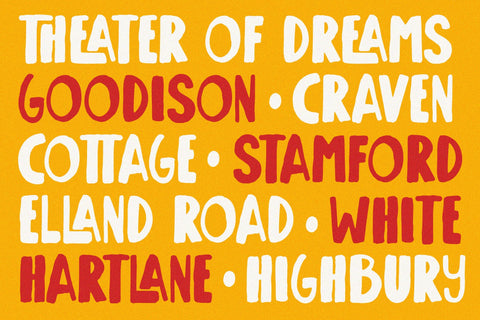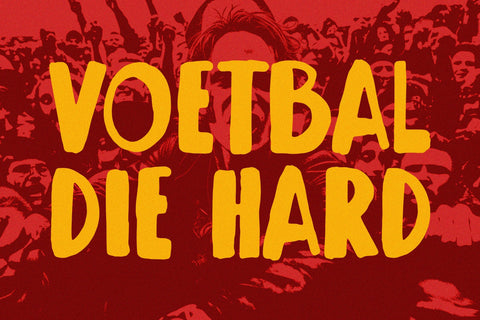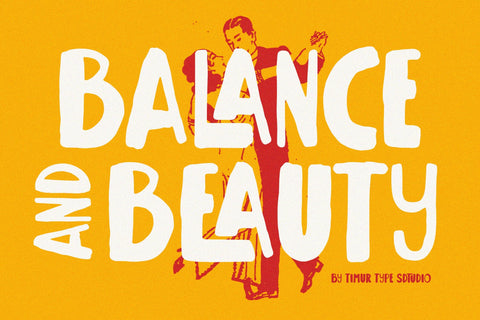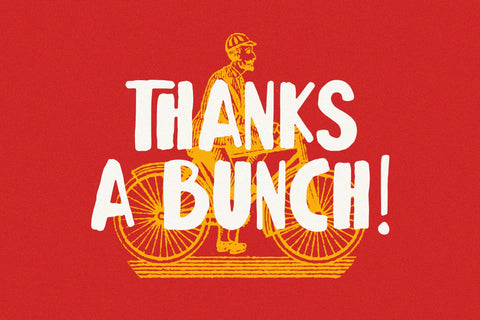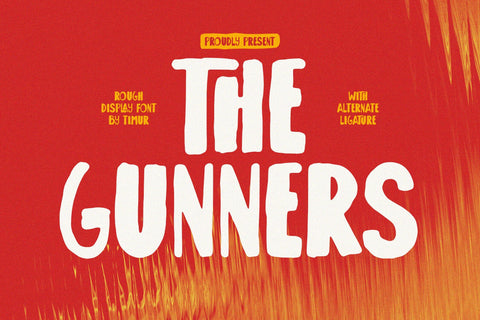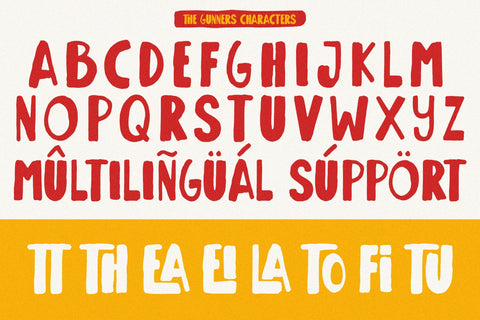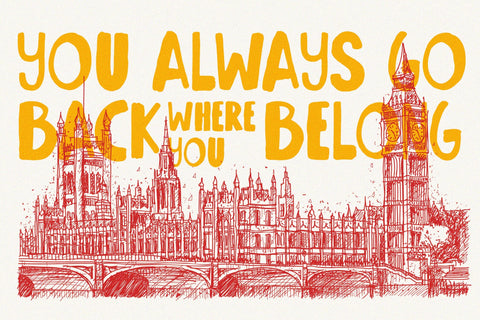
The Gunners - Rough Display Font
The Gunners is a Rough Display Font
This font is a bold and rugged display font that embodies the spirit of strength and determination. With sharp edges and a military-inspired design, each letter stands out with a sense of authority and impact. Ideal for headlines, posters, and branding projects that demand a strong and commanding presence, "The Gunners" captures attention with its distinct style and character.
The Gunners Font also supports multilingualism